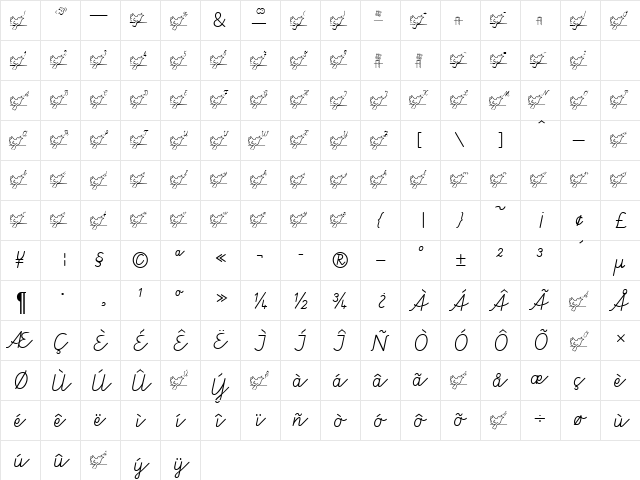
Singbird Becker Normal
Singbird Becker is a composed and adaptable typeface that performs quietly and consistently across a wide range of design contexts.